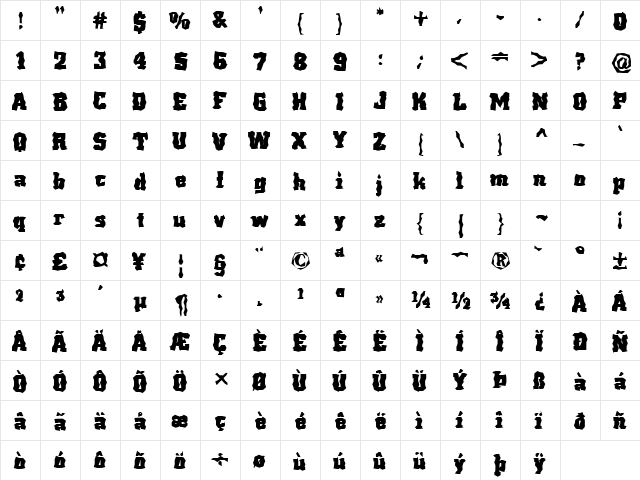
FZ WACKY 68 Normal
Design Context for FZ WACKY 68 Typeface
FZ WACKY 68 is a composed and adaptable typeface that performs quietly and consistently across a wide range of design contexts.